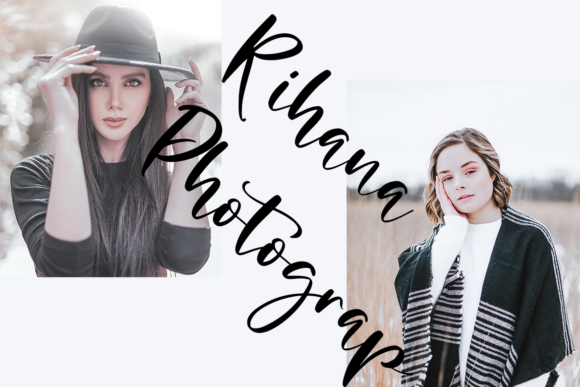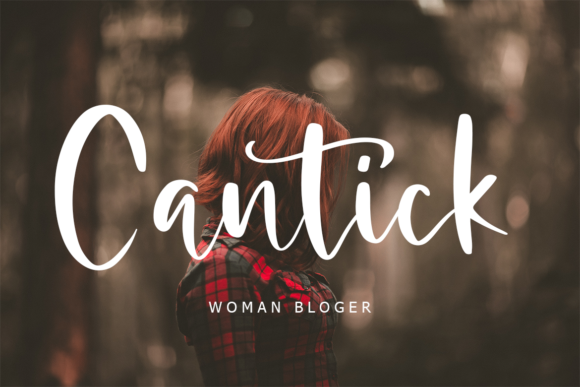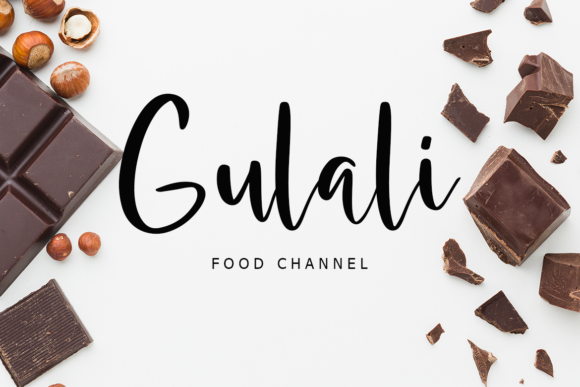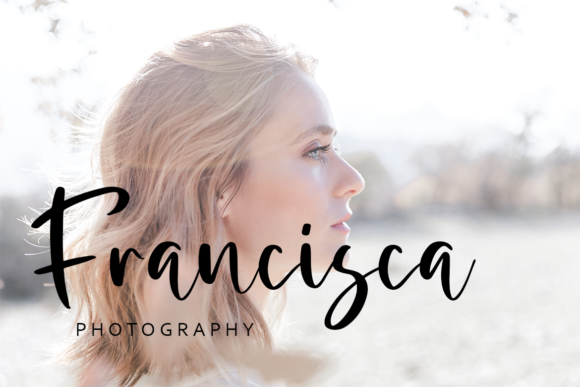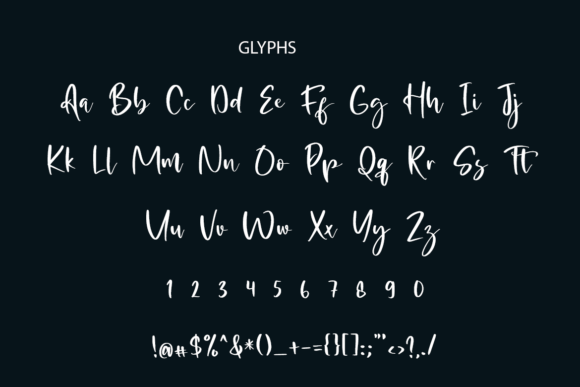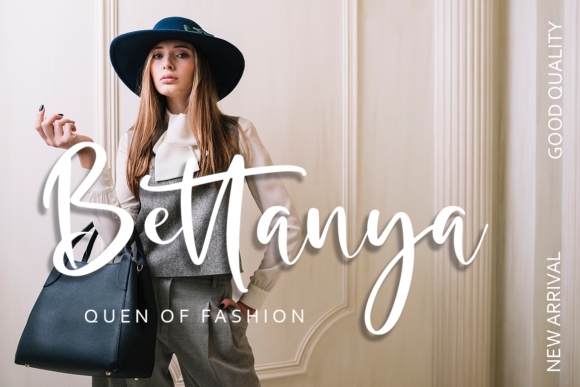
Abelisa Font
About Abelisa Font
Abelisa is a stunning and enchanting handwritten font that captures the essence of grace and beauty. With its delicate strokes and flowing letterforms, Abelisa infuses any project with an air of sophistication and creativity. This elegant font will undoubtedly become a favorite in your design toolkit, as its versatility allows it to shine across a wide range of creative endeavors.
The flowing and seamless lines of Abelisa make it the perfect choice for adding a touch of elegance to wedding invitations. Its gentle curves and graceful loops create a sense of romance and charm, setting the perfect tone for a memorable celebration of love. Whether used in traditional or modern wedding designs, Abelisa adds a timeless and captivating element that will leave a lasting impression on couples and guests alike.
For expressing heartfelt emotions and sentiments, Abelisa’s delicate and flowing style lends an air of authenticity to thank you cards, quotes, and greeting cards. Each word appears as though it was carefully handcrafted with love, making the recipient feel truly cherished and appreciated. The font’s versatility allows it to adapt effortlessly to any occasion, ensuring that your creative ideas are brought to life with elegance and flair.
Abelisa’s beauty also extends to logo design, where its unique and artistic flair can elevate a brand’s identity. Whether for a boutique business, a creative agency, or a luxury brand, this handwritten font adds a touch of personality and character, creating a memorable and distinctive visual identity.
In the realm of social media posts, Abelisa’s flowing and delicate letterforms make every message stand out with a sense of artistry and craftsmanship. Whether used for inspirational quotes, motivational posts, or lifestyle content, this font draws the eyes of the audience, captivating them with its timeless beauty.
When applied to business cards, Abelisa exudes professionalism and sophistication. Its elegant appearance reflects a keen eye for detail, making a strong impression on potential clients and partners. Whether you run a small business or a large corporation, this font elevates your brand identity and adds a touch of elegance to your professional materials.
Abelisa’s flowing and versatile style makes it an ideal choice for a wide array of projects, such as branding, packaging, stationery, and more. Its graceful and organic feel brings a sense of warmth and charm to every design, leaving a lasting impact on anyone who encounters it.
In conclusion, Abelisa is a truly captivating and enchanting handwritten font that brings a touch of elegance and sophistication to every creative idea. Whether used in wedding invitations, logos, social media posts, or any other design project, its delicate and flowing letterforms elevate the overall presentation and make it truly memorable. Fall in love with Abelisa and let its elegance and versatility elevate your projects to the highest level, leaving a lasting impression on all who experience its beauty.